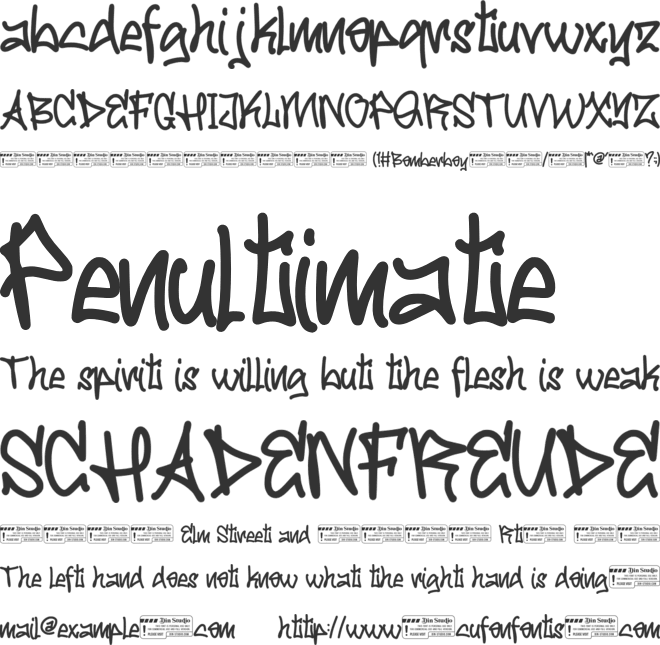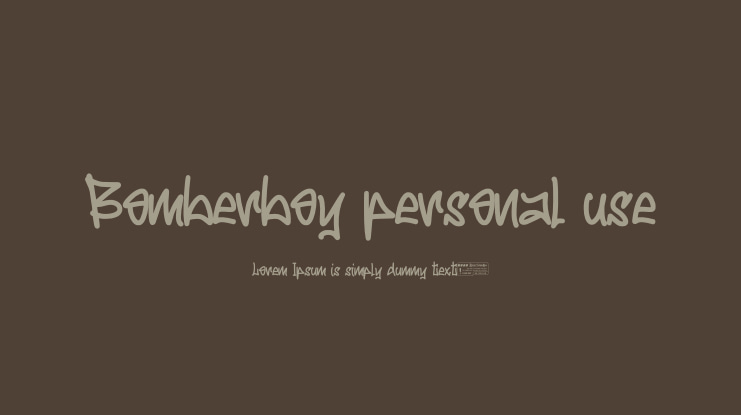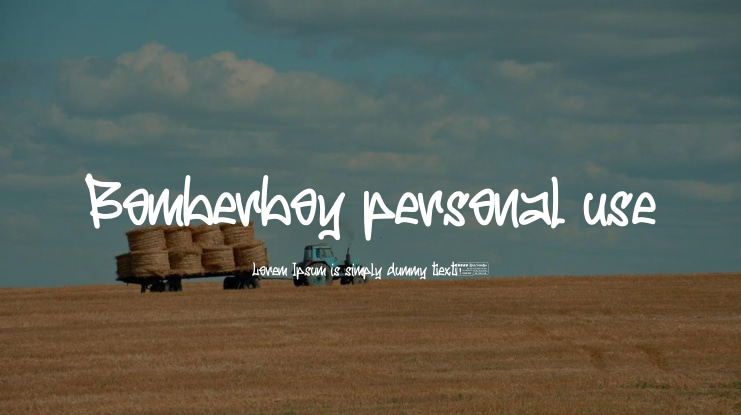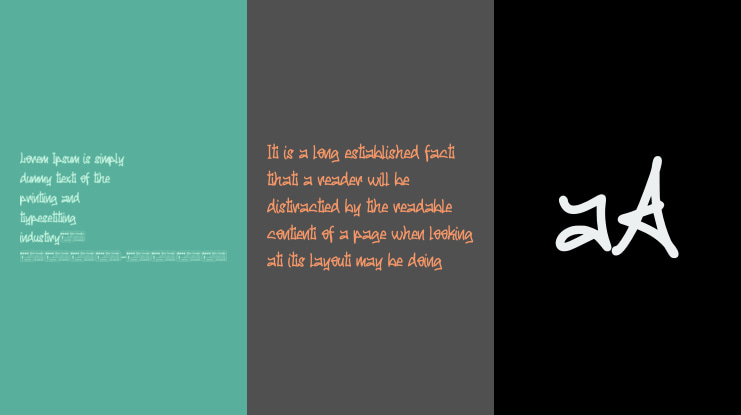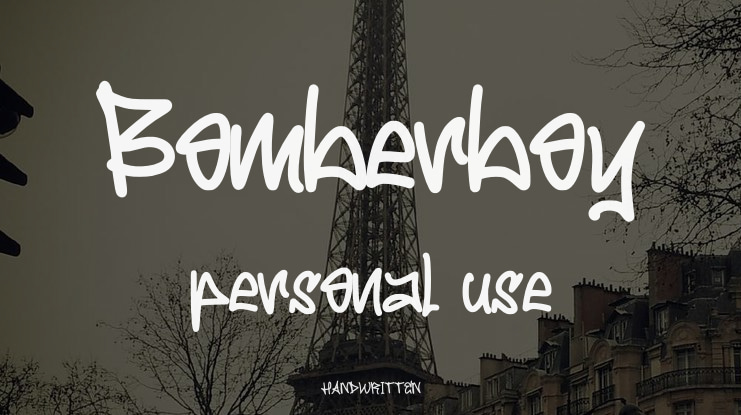
Product Description: Bomberboy – A Graffiti Font The font is available in two versions: solid and shadow. Use this vibrant graffiti font to infuse a street life atmosphere into your projects. Ideal for logos, quotes, cards, packaging, website or social media branding, and more!